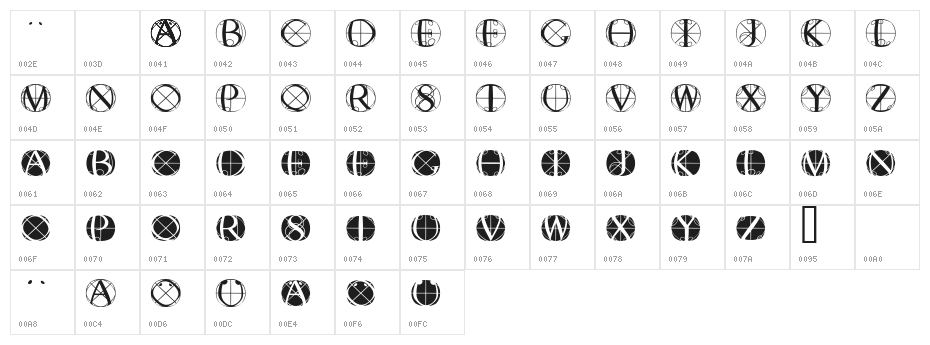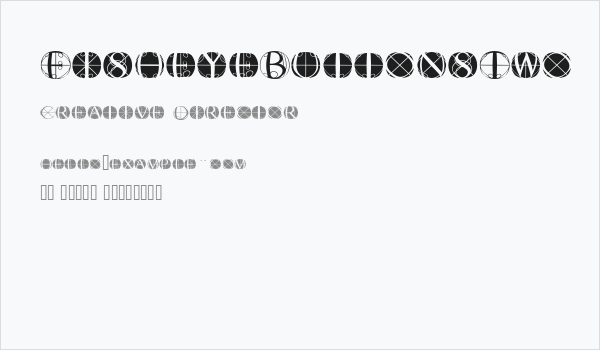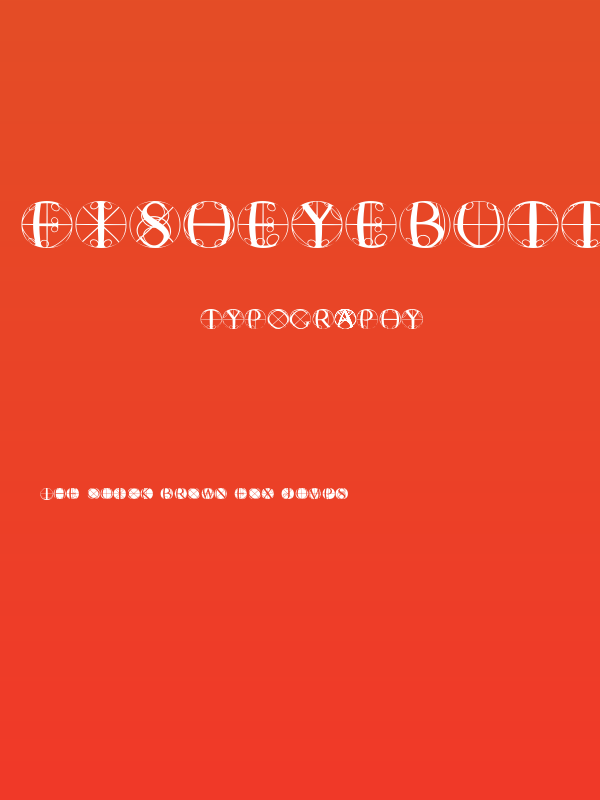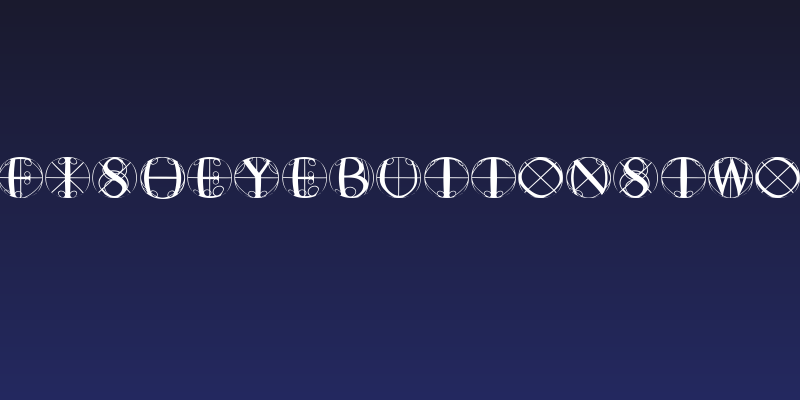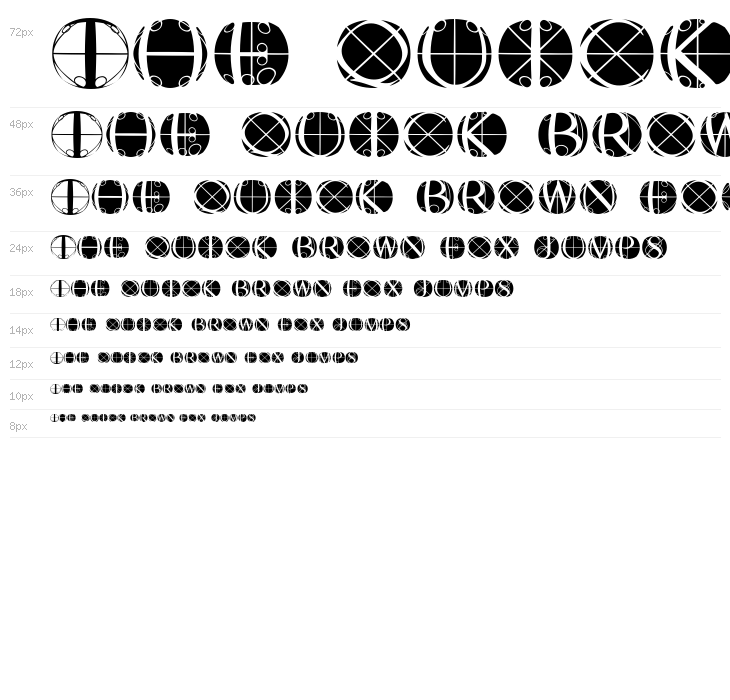
FisheyeButtonsTwo Font
FisheyeButtonsTwo Description
This font features a highly decorative and artistic style, with each character enclosed within a circular frame. The design incorporates intricate patterns and geometric shapes, creating a unique and eye-catching appearance. The uppercase letters are bold and stylized, with a strong emphasis on symmetry and balance. The lowercase letters maintain the same circular motif, offering a cohesive look throughout the typeface. The numbers and special characters follow the same design principles, ensuring consistency. This font is ideal for projects that require a distinctive and ornamental touch.
| Proposed Projects | Ideal for artistic posters, unique branding, decorative invitations, and creative logos. |